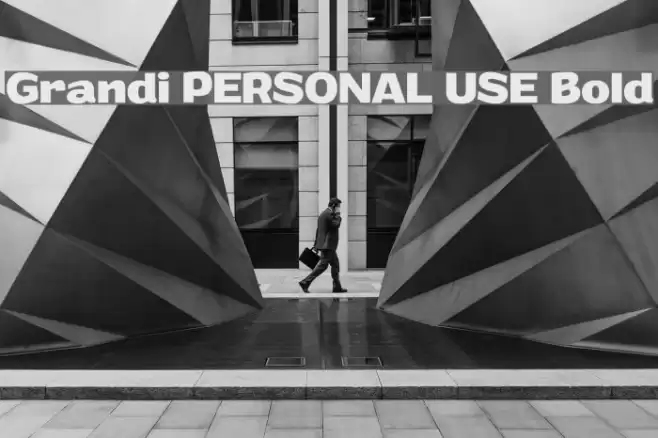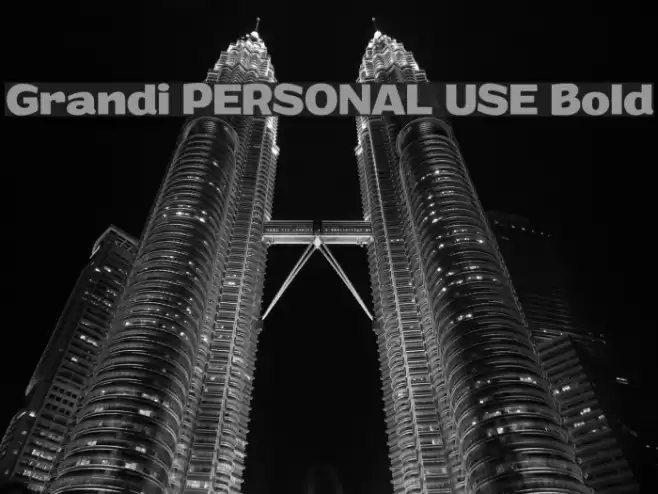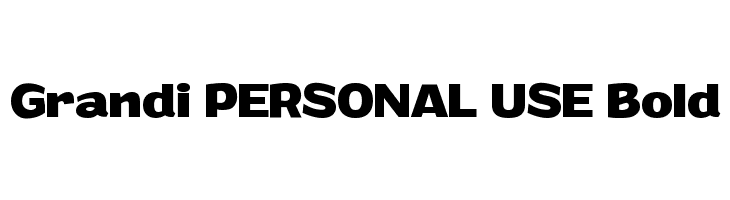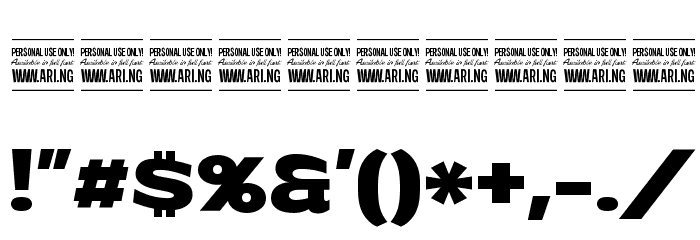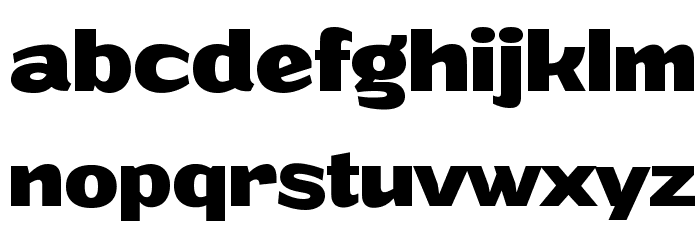
Grandi PERSONAL USE Bold Font
Grandi PERSONAL USE Bold Description
This bold and impactful font features strong, thick strokes that convey a sense of power and confidence. The uppercase letters are robust and commanding, while the lowercase letters maintain a consistent weight, ensuring readability. The font's design is clean and modern, with a slight geometric influence that adds to its contemporary appeal. The characters are evenly spaced, providing a balanced and harmonious look. The special characters are designed with the same boldness, ensuring they stand out effectively. This font is ideal for making a statement in any design project.
A bold, modern font with strong, thick strokes and a geometric influence from Uncategorized fonts.
- Proposed Projects: Ideal for headlines, posters, branding, and any project requiring a strong visual impact.